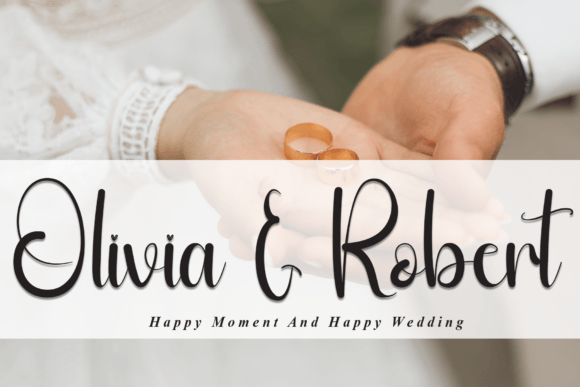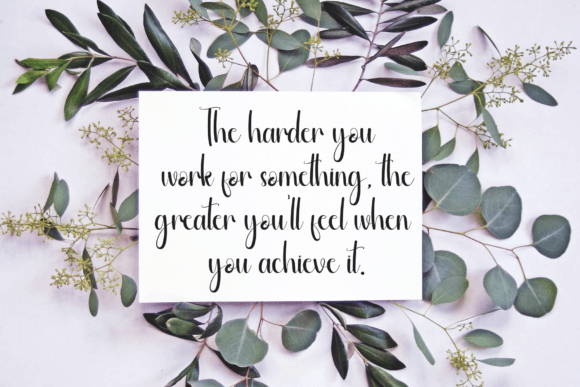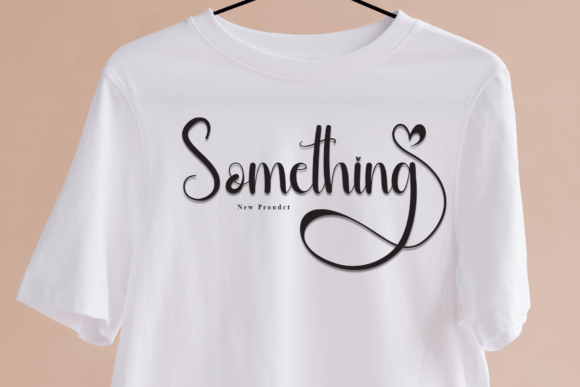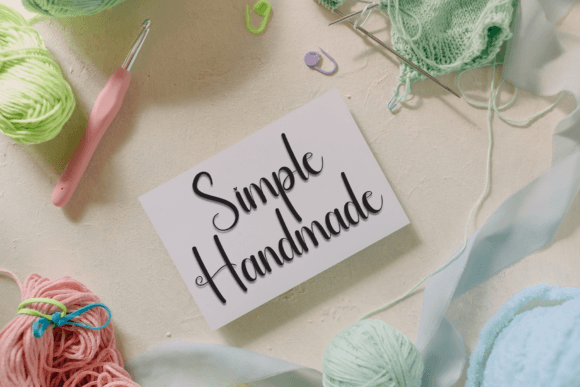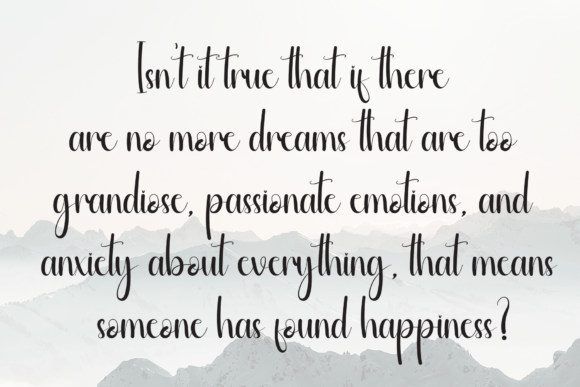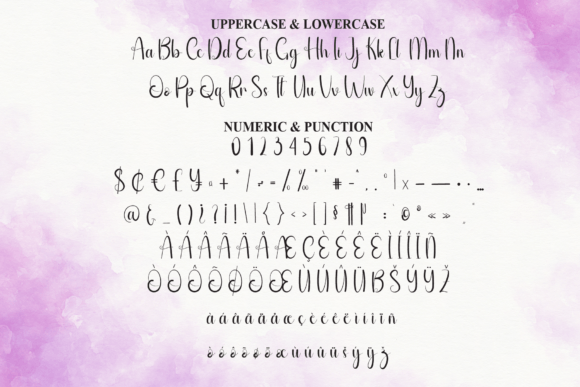
Introduction to Purpleday Font
Remember that moment when you finally find the perfect font to bring your creative project to life? For designers, it’s like stumbling upon a hidden treasure that makes all the difference in the world. I’m sure you’ve been there too, scrolling through font collections, searching for that elusive perfect match. Well, let me introduce you to a font that will make your heart skip a beat – the Purpleday Font.
This charming, handwritten display font is a game-changer for designers seeking to add a touch of warmth and friendliness to their projects. With its delightful blend of sweetness and sophistication, Purpleday Font is perfect for wedding invitations, greeting cards, and any design project that needs a sprinkle of fun.
- Purpleday Font offers a unique, high-quality design resource perfect for creative projects.
- Purpleday Font is available in a single weight, making it easy to use in a variety of design contexts.
Honest Review: Purpleday Font
As a designer, I’m always on the lookout for high-quality design resources to elevate my creative projects. Recently, I had the chance to try out the Purpleday Font, and I must say, it’s a real gem. ✨
- Modern and sleek aesthetic that’s sure to grab attention
One potential limitation of the Purpleday Font is its limited character set. ⚠️ While it’s perfect for short phrases and titles, it may not be suitable for longer blocks of text.
Overall, I’m really impressed with the Purpleday Font. It’s a great addition to any designer’s toolkit, and I’m excited to see how it will elevate my future creative projects.
The Purpleday Font is versatile and can be used in a variety of creative projects, such as: branding, marketing materials, social media graphics, and more.
Compared to Purpleday Font, Great Vibes Font has a more refined and elegant appearance, making it suitable for a wider range of creative projects. While Purpleday Font is more playful and fun, Great Vibes Font exudes a sense of luxury and sophistication.